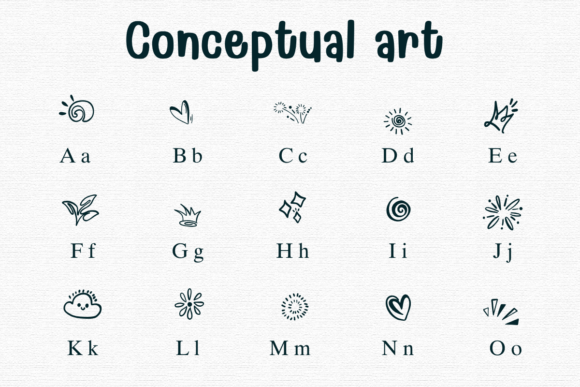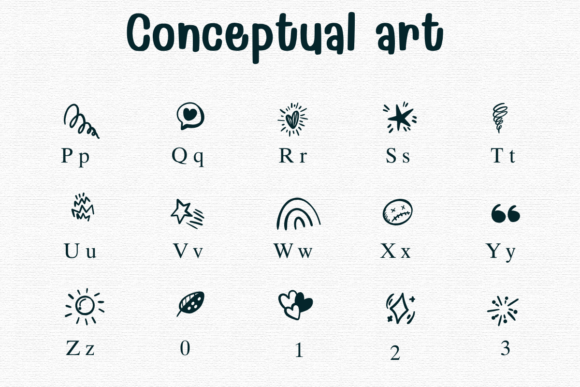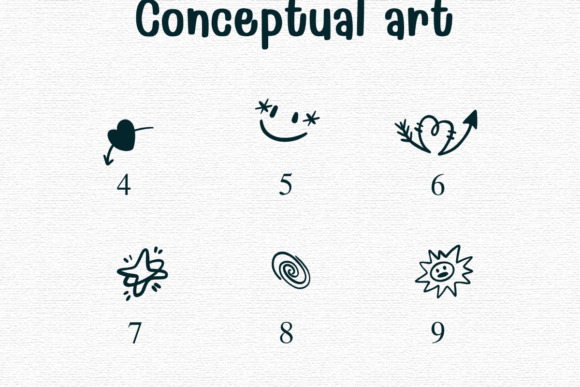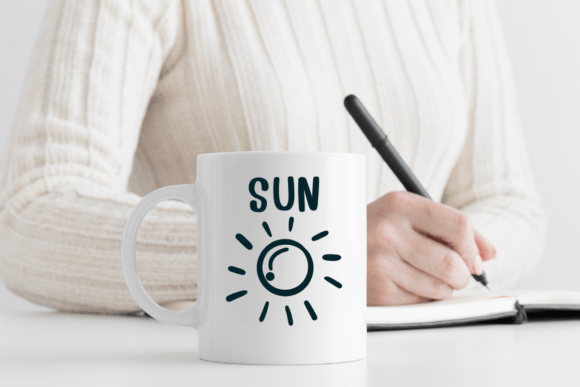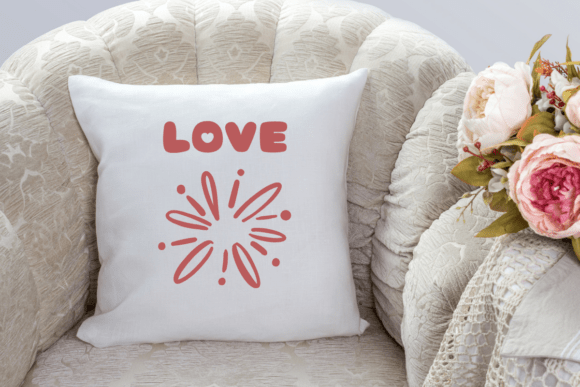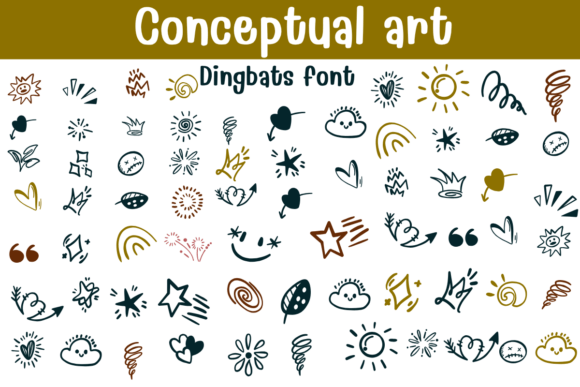
Introducing Conceptual Art Font: Unleash Your Creativity with Hand-Drawn Doodles and Symbols
Are you a designer, crafter, or artist looking for a unique and playful way to add a personal touch to your projects? Look no further than the Conceptual Art Font, a fun and versatile dingbats font packed with hand-drawn doodles, symbols, and decorative icons. This exciting font is perfect for adding a whimsical and artistic touch to your designs, making it ideal for a wide range of creative projects.
What is Conceptual Art Font?
Conceptual Art Font is a dingbats font that features a vast collection of hand-drawn doodles, symbols, and decorative icons. Each character is carefully crafted to bring a touch of playfulness and creativity to your designs. With its unique and eclectic mix of illustrations, this font is sure to inspire your imagination and take your projects to the next level.
Whether you’re a designer, crafter, or artist, Conceptual Art Font offers endless possibilities for creative expression. Here are just a few ways you can use this amazing font:
- Posters and Flyers: Add a playful touch to your posters and flyers with Conceptual Art Font’s hand-drawn doodles and symbols. Perfect for promoting events, products, or services.
- Social Media Graphics: Elevate your social media graphics with this font’s whimsical and artistic illustrations. Great for creating engaging and shareable content.
- Greeting Cards: Create one-of-a-kind greeting cards with Conceptual Art Font’s decorative icons and doodles. Perfect for special occasions like birthdays, weddings, and holidays.
- Scrapbooking: Add a personal touch to your scrapbooking projects with this font’s hand-drawn illustrations. Great for creating unique and memorable pages.
- Branding and Packaging: Use Conceptual Art Font to add a touch of personality to your branding and packaging designs. Perfect for businesses looking to stand out from the crowd.
Key Features of Conceptual Art Font
Here are some of the key features that make Conceptual Art Font so special:
- Hand-Drawn Illustrations: Each character is carefully hand-drawn to ensure a unique and personal touch.
- Versatile and Flexible: Use Conceptual Art Font for a wide range of projects, from posters and social media graphics to greeting cards and scrapbooking.
- Constantly Updated: The font is regularly updated with new illustrations and characters, ensuring you always have access to fresh and exciting content.
Tips and Tricks for Getting the Most Out of Conceptual Art Font
Here are some tips and tricks to help you get the most out of Conceptual Art Font:
- Experiment with Different Sizes and Colors: Play around with different sizes and colors to add depth and interest to your designs.
- Combine with Other Fonts: Mix and match Conceptual Art Font with other fonts to create unique and eye-catching combinations.
- Use as a Background: Use the font’s illustrations as a background or texture to add a subtle yet creative touch to your designs.
Conceptual Art Font is a game-changer for designers, crafters, and artists looking to add a playful and artistic touch to their projects. With its vast collection of hand-drawn doodles, symbols, and decorative icons, this font offers endless possibilities for creative expression. Whether you’re working on posters, social media graphics, greeting cards, scrapbooking, or branding projects, Conceptual Art Font is the perfect tool to help you unleash your imagination and take your designs to the next level.